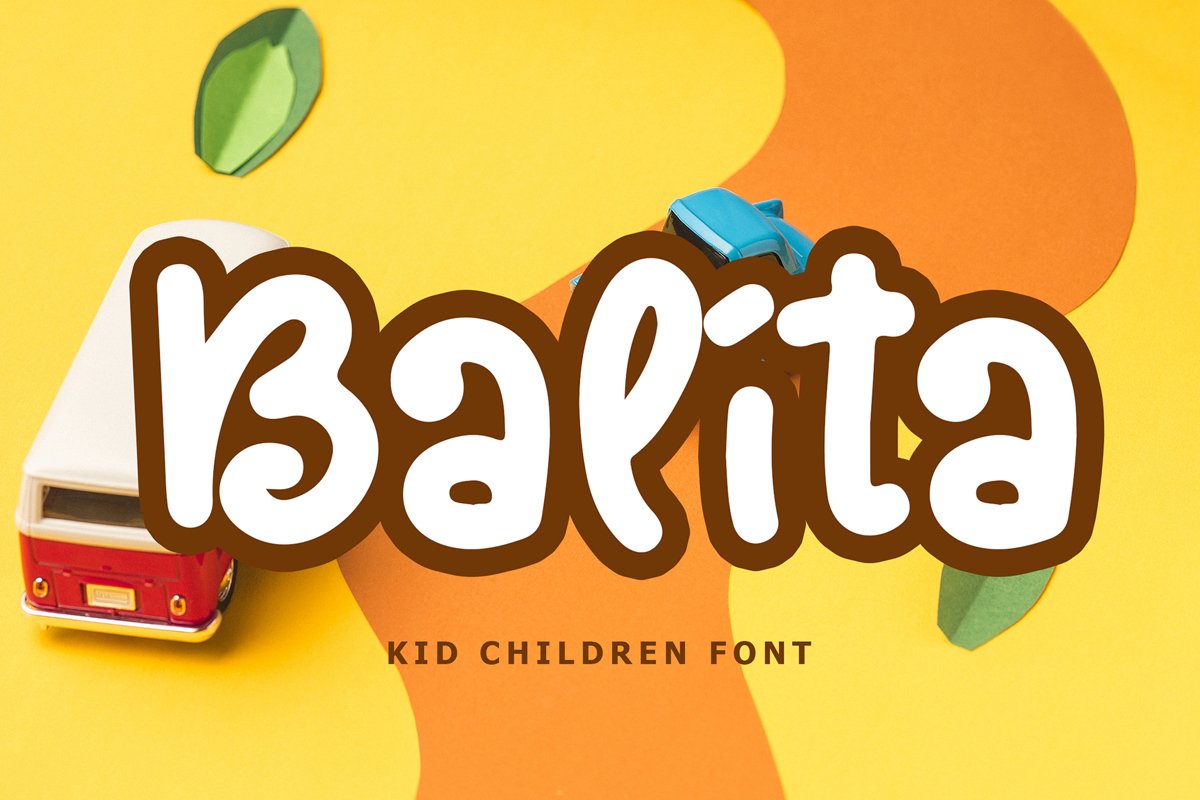
Balita Kids Display Font
Balita
Balita is an exciting and extraordinary display font that will make any kid-themed design stand out!Balita is perfect for branding projects, logo, tshirt designs, book cover design, social media posts, advertisements, product packaging, product designs, label, watermark, invitation, stationery and any projects.What's Included :
Balita Kids Display Font